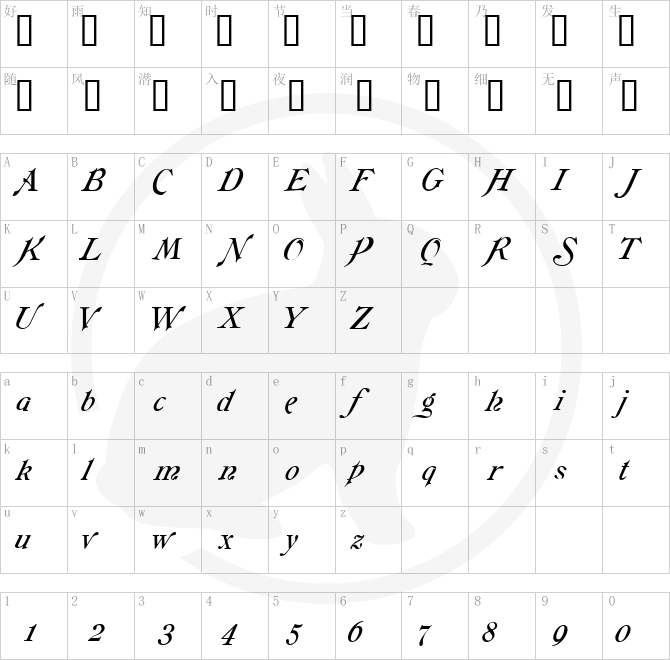
- Font Name:Galathea
- Copyright:Galathea computer font v1.0 created 2000 Harold Lohner • HLohner@aol.com • http://members.aol.com Based on a classic analog font of the same name, "Originalerzeugnis von J. S. Schelter & Giesecke, Leipzig"
Galathea.ttf is a very beautiful artistic font, Galathea.ttf is widely used in the design and printing of various books and pictures,Galathea.ttf has a strong visual impact,Galathea.ttf is a commonly used font in newspapers, magazines and books, and is used in posters, e-commerce Poster design, store design, logo design, font design and other fields.Galathea.